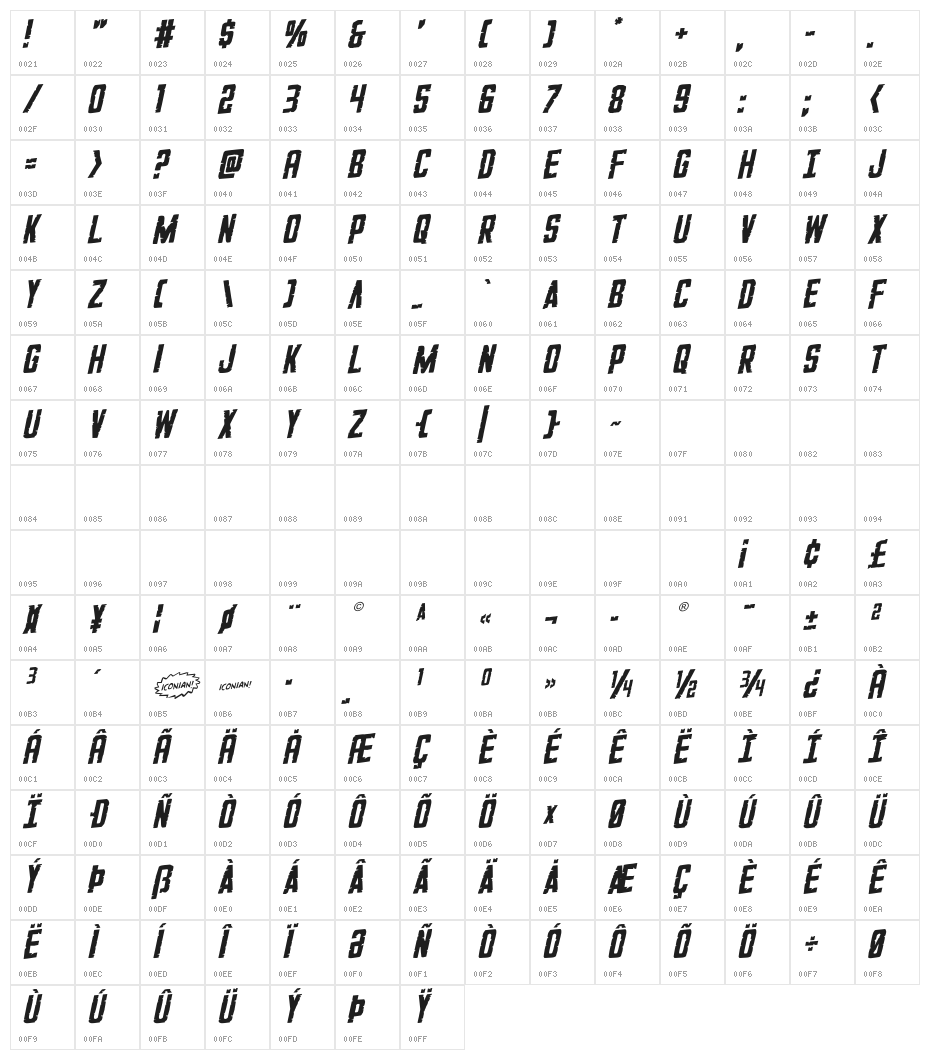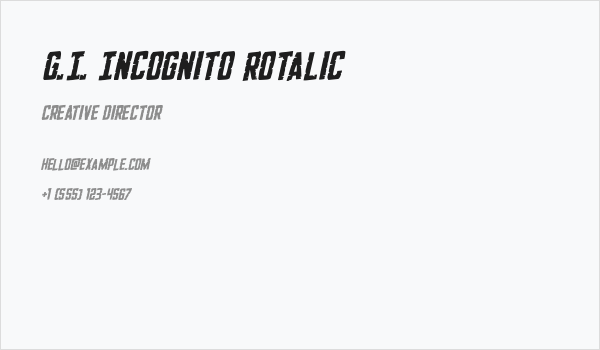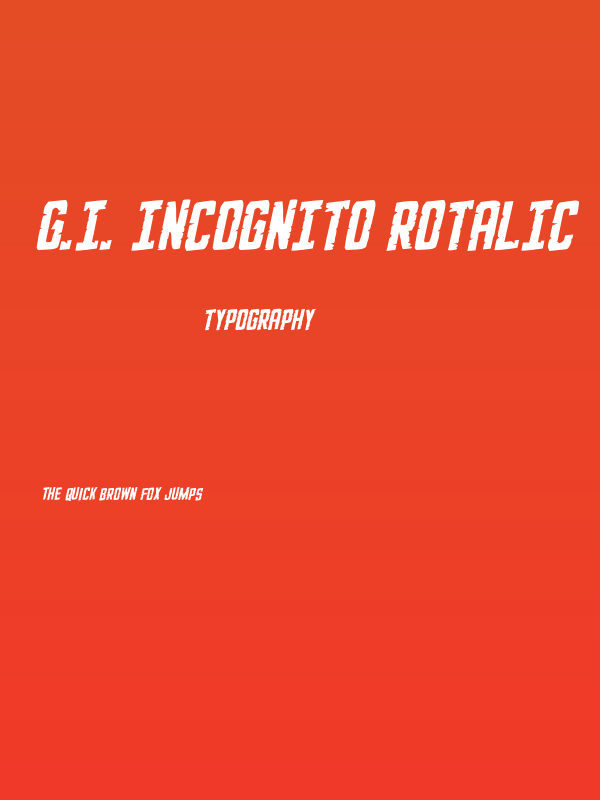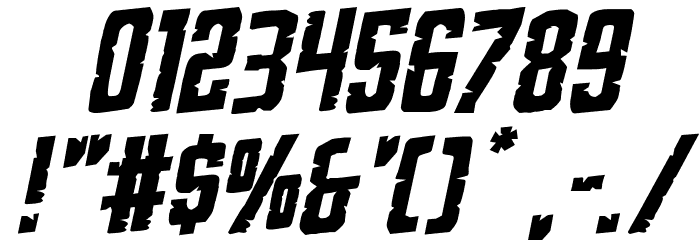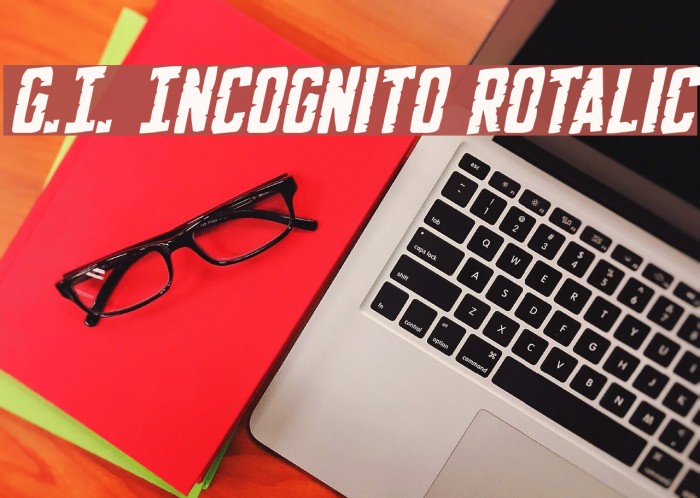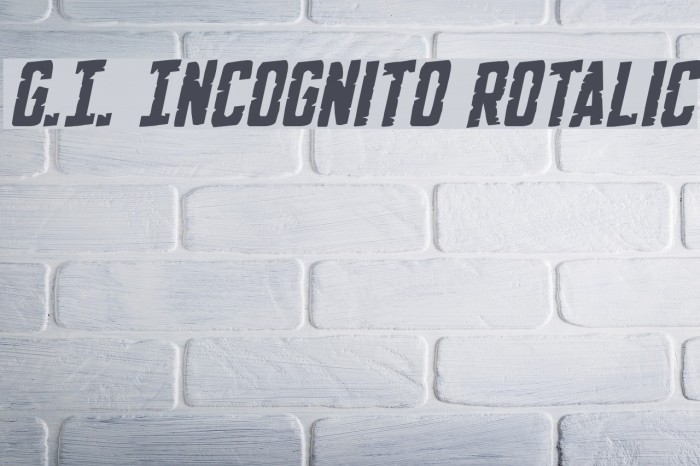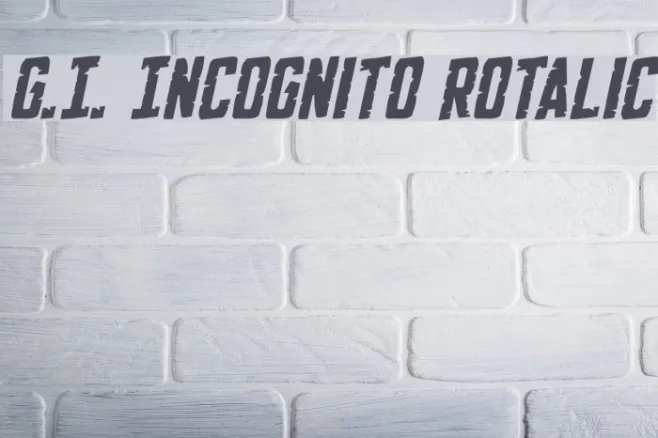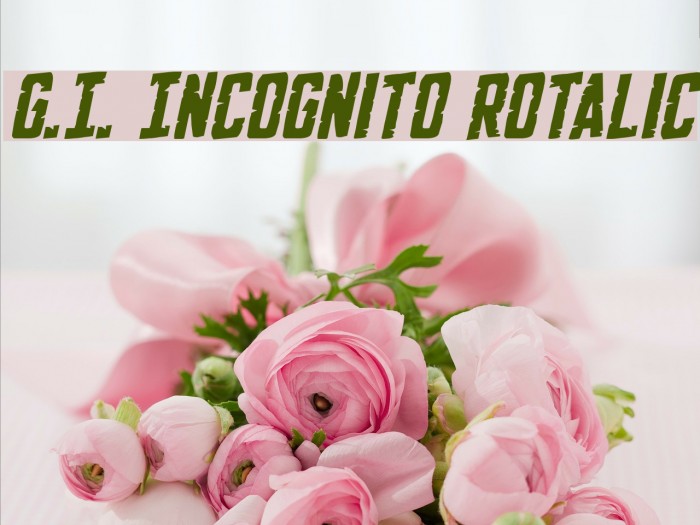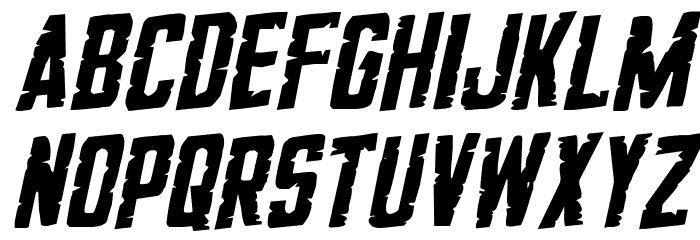
G.I. Incognito Rotalic Font
G.I. Incognito Rotalic Description
This font features a bold and dynamic style with a strong italic slant, giving it a sense of motion and energy. The characters are robust and angular, with sharp edges and a slightly distressed texture that adds a rugged, industrial feel. The uppercase and lowercase letters maintain a consistent style, while the numerals and special characters are designed to match the boldness and angularity of the alphabet. This font is highly legible and impactful, making it suitable for attention-grabbing designs.
| Proposed Projects | Ideal for sports branding, action-themed posters, video game titles, and dynamic logos. |